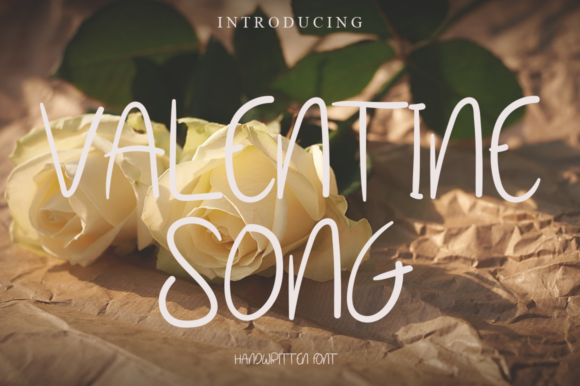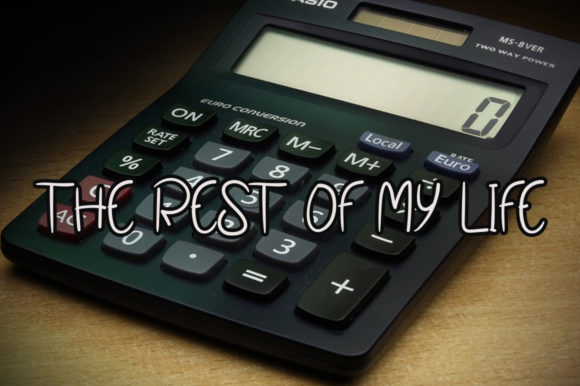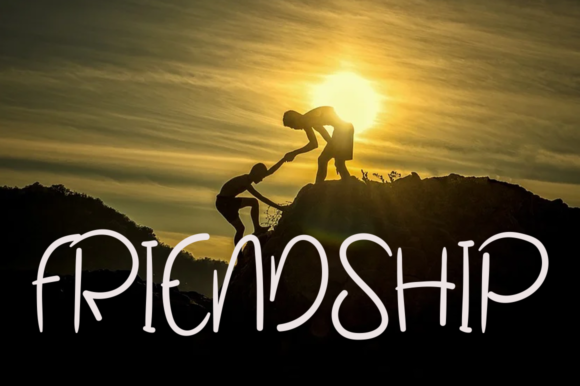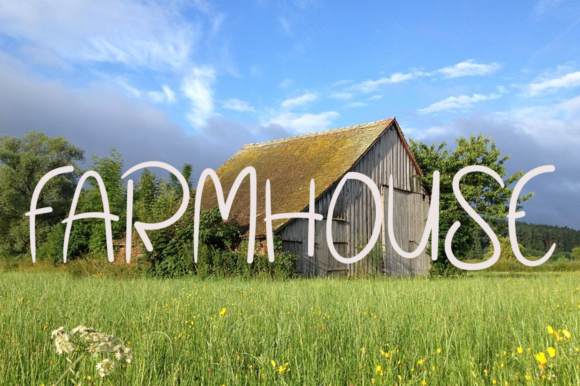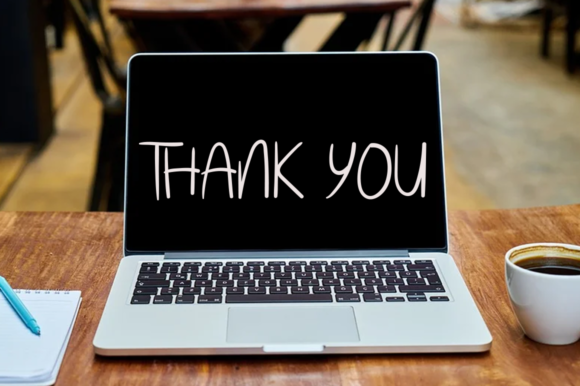
About Valentine Song Font
valentine song is a simple, thin and relaxed handwritten font. Natural and adaptable, this font fits a wide pool of designs, elevating them to the highest levels.